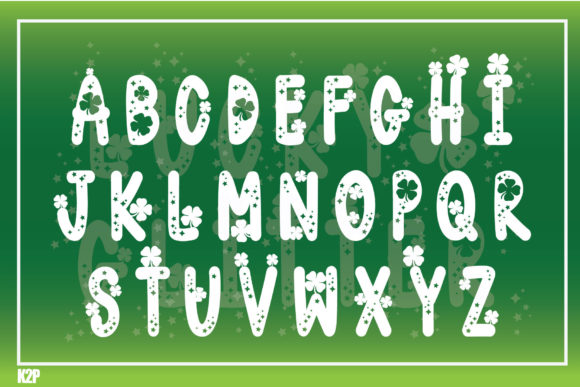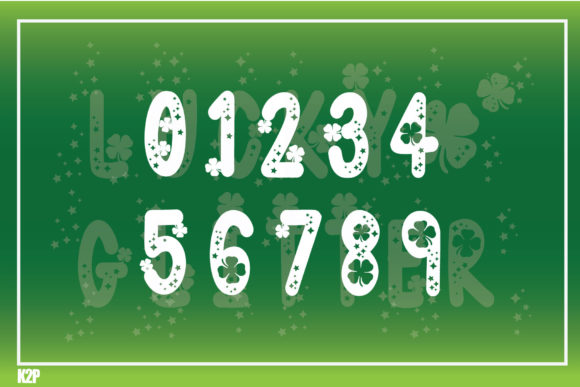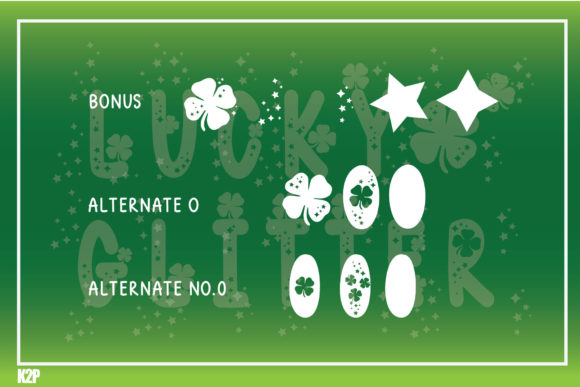
Introduction to Lucky Glitter Font
Remember the excitement of brainstorming for a new project? The rush of ideas, the endless possibilities, and the thrill of bringing something unique to life? For designers, this moment is what drives us to push the boundaries of creativity. And sometimes, all it takes is the right font to elevate our designs from good to great.
Enter the Lucky Glitter Font, a stunning decorative font that’s perfect for adding a touch of magic to your next creative project. With its thick, festive letters and authentic look, this font is a game-changer for designers who want to add a personal and realistic feel to their designs.
Key Features of Lucky Glitter Font
- Lucky Glitter Font is a high-quality, free download font perfect for creative projects requiring a touch of elegance and sophistication.
- This font features a transparent background, making it ideal for use on images, graphics, and other design elements.
- The font includes a range of characters, including uppercase and lowercase letters, numbers, and punctuation marks, making it suitable for both personal and commercial use.
- This font is designed to be versatile and can be used in a variety of creative projects, from wedding invitations to social media graphics.
- Lucky Glitter Font is a valuable design resource that can add a unique touch to your designs, making it stand out from the crowd.
Honest Review: Lucky Glitter Font
I recently came across the Lucky Glitter Font, and I was excited to give it a try. As a designer, I’m always on the lookout for high-quality fonts that can add a touch of magic to my creative projects. The Lucky Glitter Font definitely delivers on that front.
Here are some of the things that work well with this font:
- ✨ Beautiful, intricate design with a touch of whimsy and sparkle.
- ✨ High-quality graphics and transparent background, making it perfect for design projects.
- ✨ Great for creative projects that need a bit of flair, such as party invitations, wedding designs, and more.
- ⚠️ Limited character set, which may not be suitable for large blocks of text.
- ⚠️ Not ideal for serious or formal designs, as it’s a bit too playful and whimsical.
Overall, I’m really impressed with the Lucky Glitter Font. It’s a fun and creative resource that’s perfect for adding a touch of sparkle to your design projects. While it may have some limitations, I think it’s definitely worth checking out if you’re looking for a unique and eye-catching font.
Tips for Getting the Most Out of Lucky Glitter Font
To get the most out of the Lucky Glitter Font, consider using it on a transparent background to add a touch of whimsy to your design. You can also experiment with different font sizes and styles to create a unique look.
The Lucky Glitter Font is perfect for a variety of creative projects, including party invitations, social media graphics, and marketing materials. Its high-quality design and transparent background make it a versatile design resource that can be used in a range of applications.